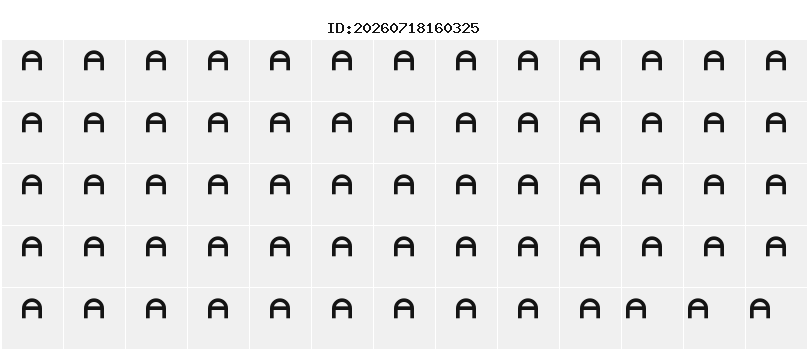
About coreldraw.ttf
coreldraw.ttf is a modern, elegant sans-serif font designed for ultimate readability and visual harmony. Perfect for branding, headlines, web design, and print materials.